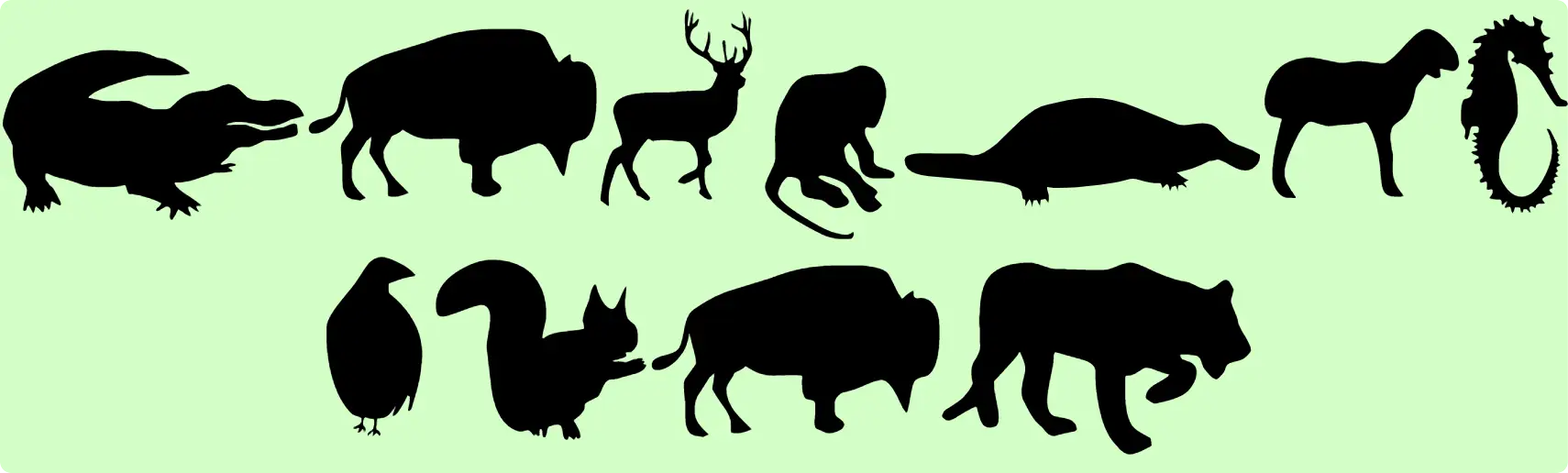
Animals Font
Animals Font Preview
Animals
Animals is a dingbats font. It's a picture font: each key types a little icon or decoration instead of a letter. You can download it for free and test it with your own words in the preview above.
What You Can Type With Animals
Animals covers the full alphabet in upper and lowercase, plus all ten numbers, so you can set names, dates and prices without switching fonts. Common punctuation such as &, !, ? and @ is included as well. It also has the accented letters you need for German.
Where Animals Works Best
Designers usually reach for fonts like Animals when they're making icons, decorative borders and themed designs. Pick the symbols you want from the character map, then type those keys. Change the font size and color to style the icons like normal text.
Does Animals support accented letters?
Yes. Animals includes the accented letters needed for German, so it works for more than just English.
What fonts pair well with Animals?
Use it next to any regular font to add icons, bullets or borders to your design.